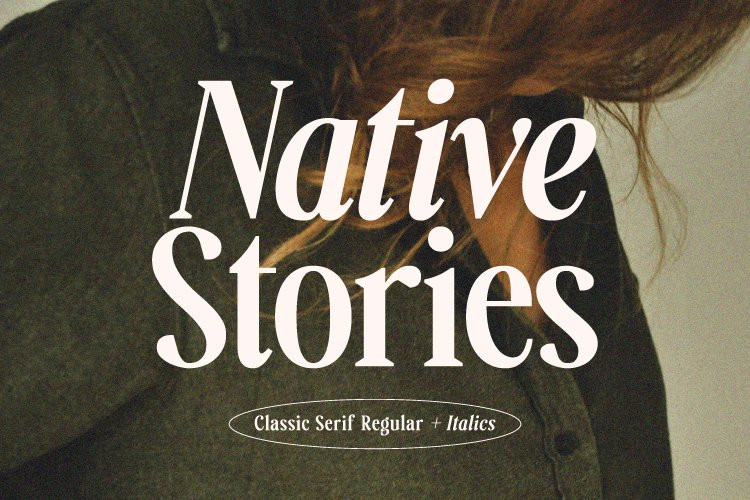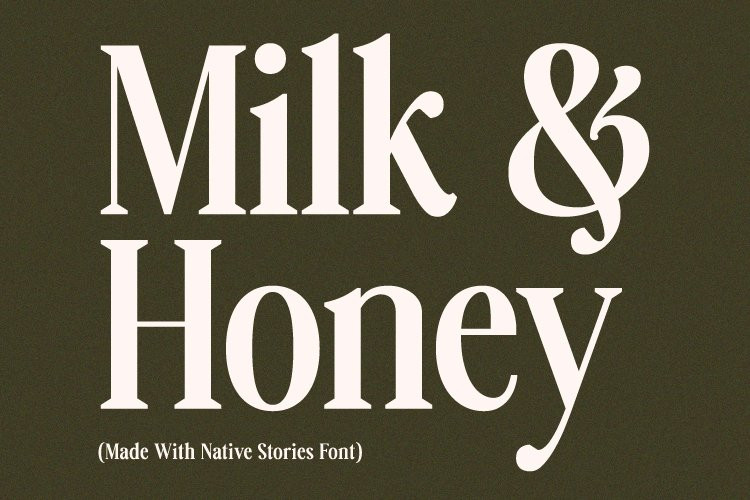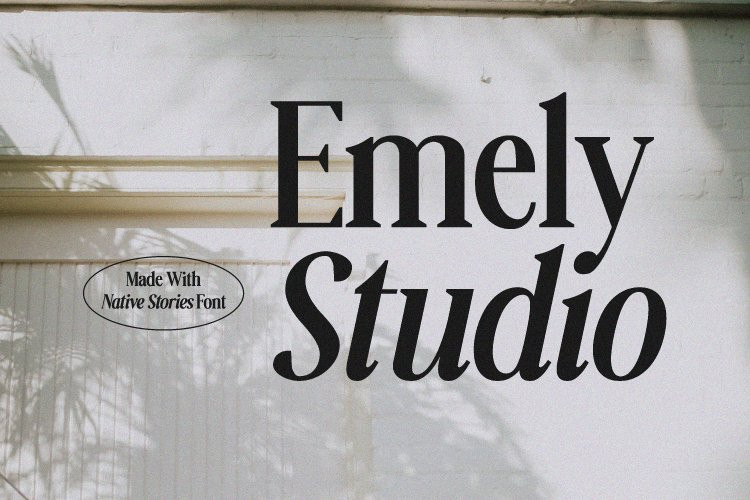
Native Stories Font
Native Stories FontA serif font with a stylish, classic feel is ready to work with your design projects. There are two styles, namely Regular and Italic. Perfect for applying to poster designs, branding, magazines, merchandise, logos and more.